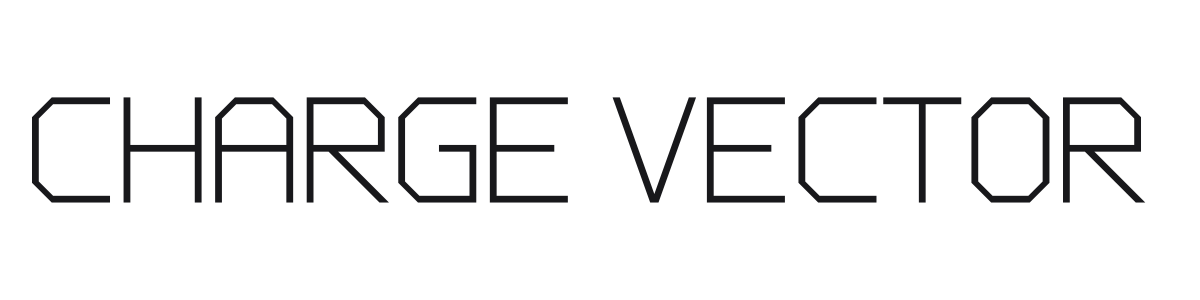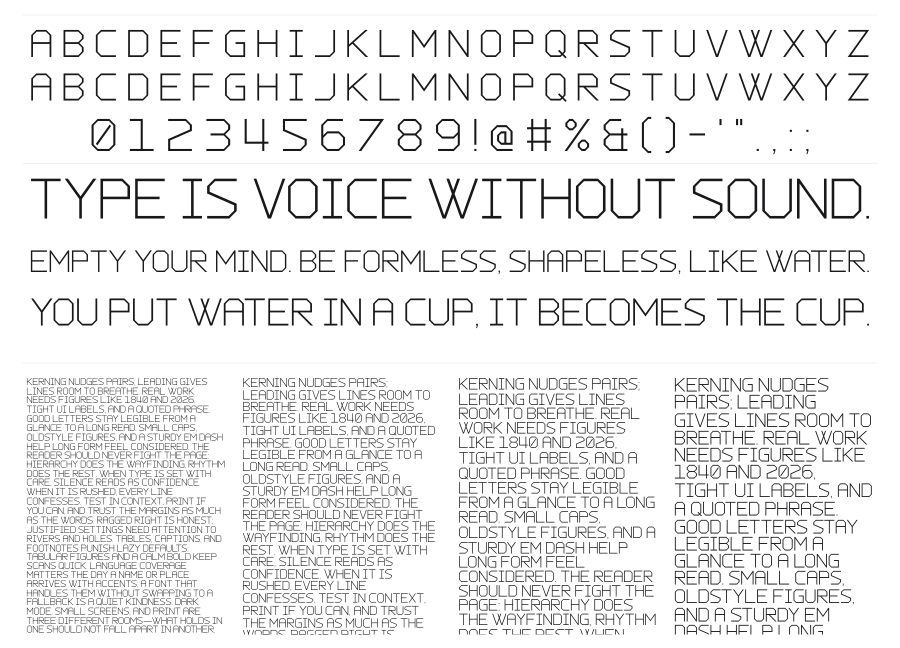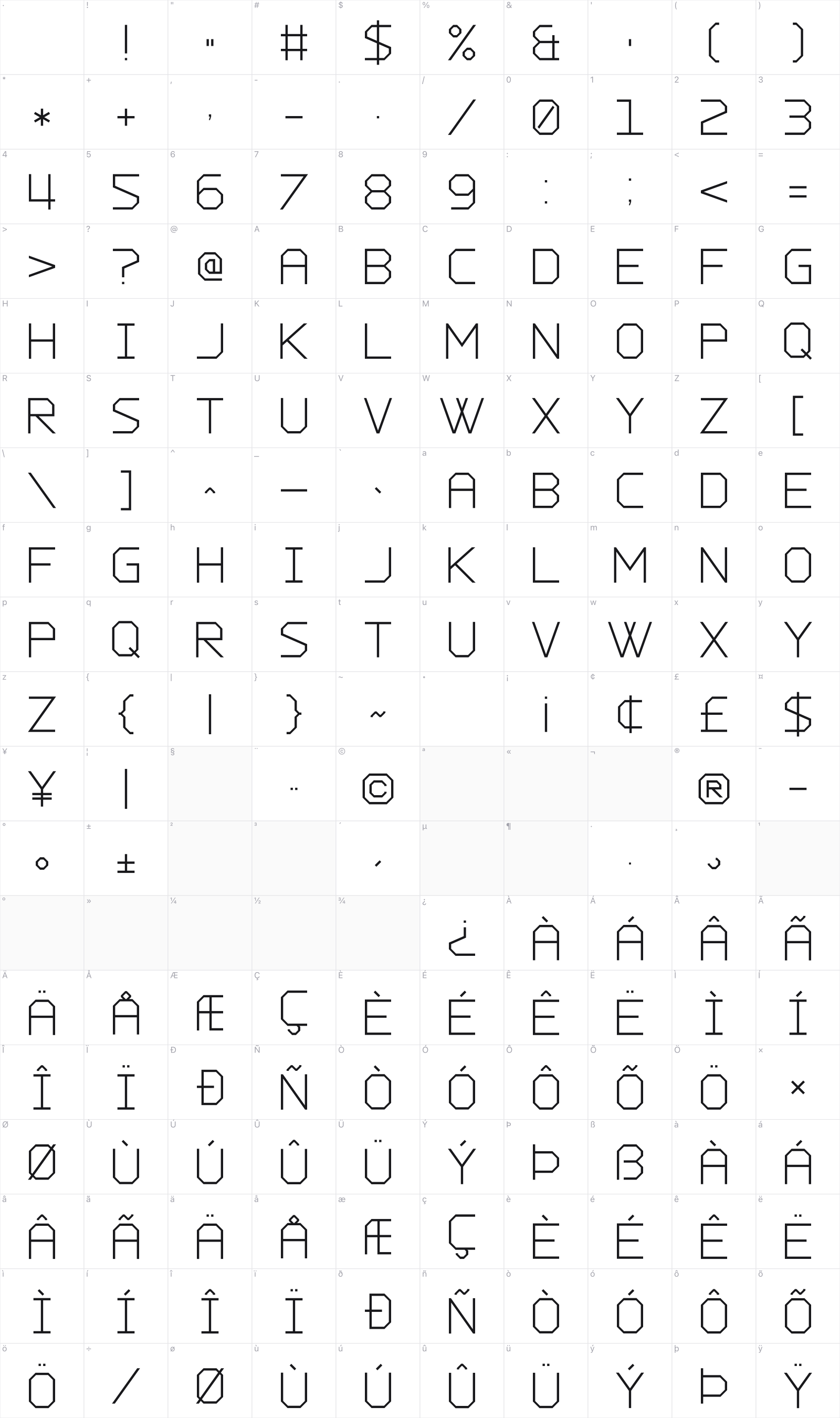
Charge Vector
Charge Vector is a light geometric sans built entirely from angular, chamfered strokes that eliminate every curve in favor of diagonal cuts. The result is a cold, precise aesthetic that sits squarely in sci-fi and technical design territory. It works best at large sizes where the faceted construction of each character reads clearly.